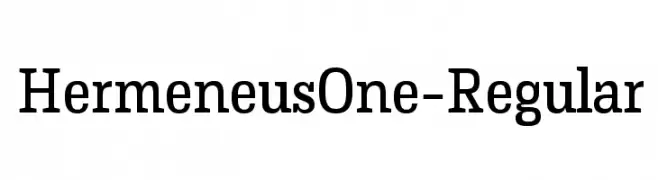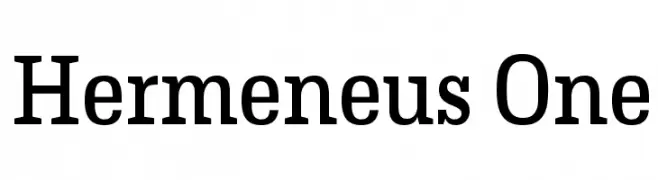
A modern serif font with clean lines and balanced proportions.
A bold serif font with a classic yet modern style, featuring strong vertical lines and subtle curves.